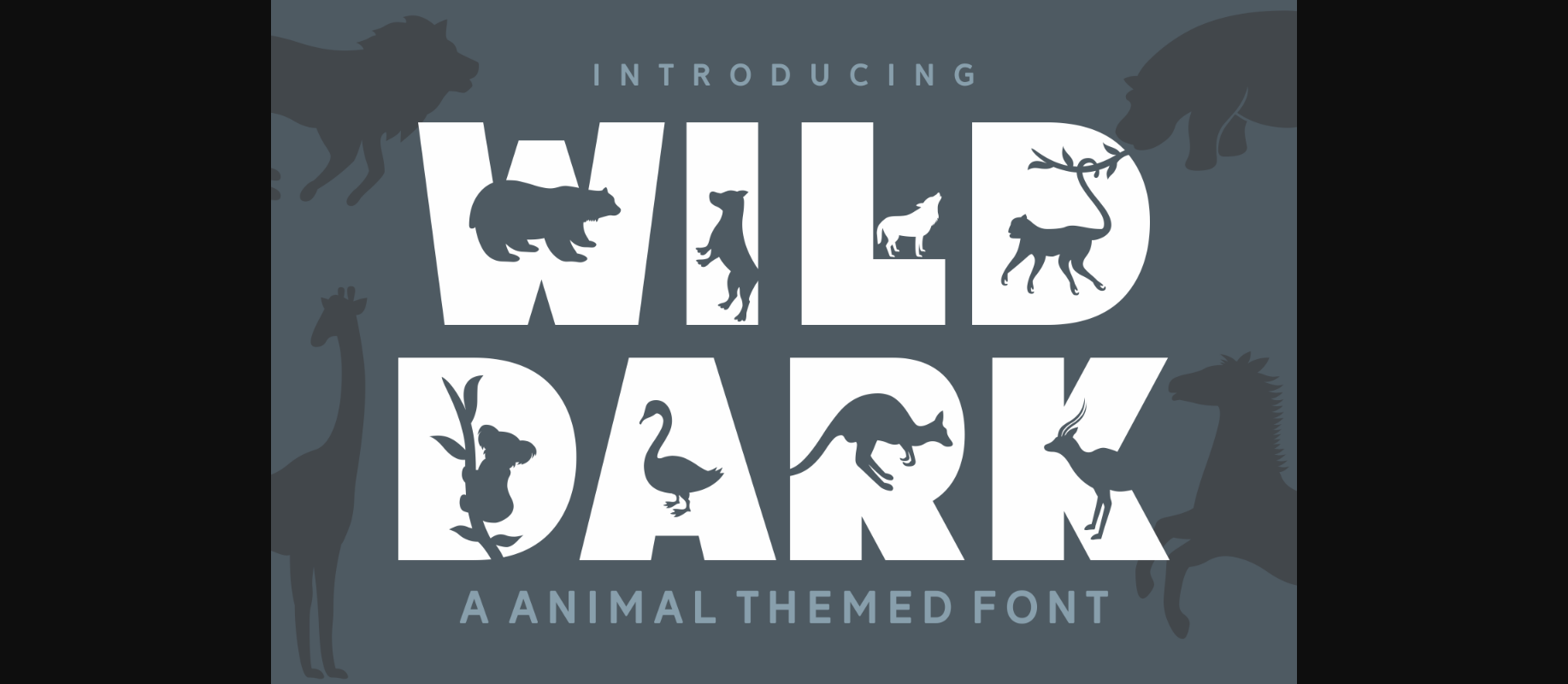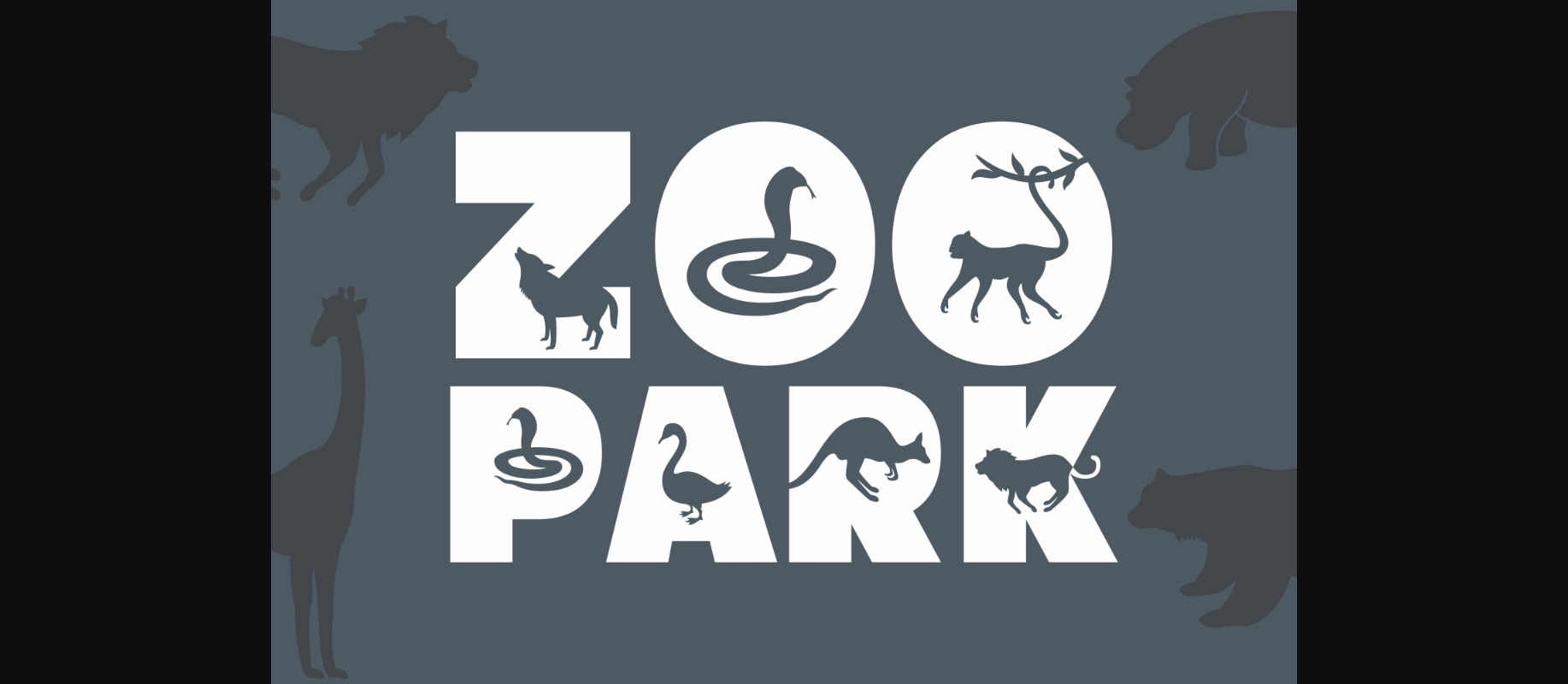
About Wild Dark Font
Wild Dark is a playful and uniquely designed decorative font, featuring animals as ornaments. It is PUA encoded which means you can access all of the glyphs and swashes with ease!